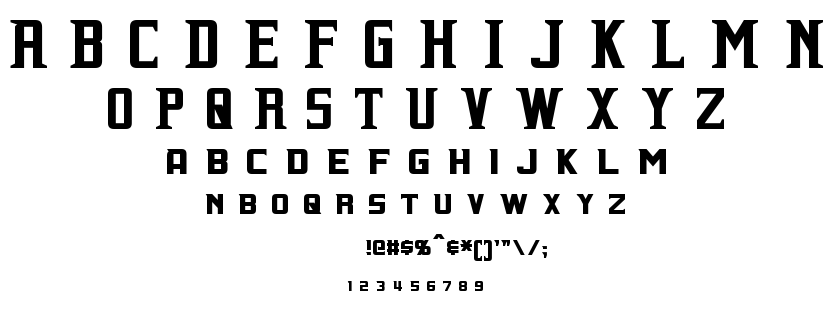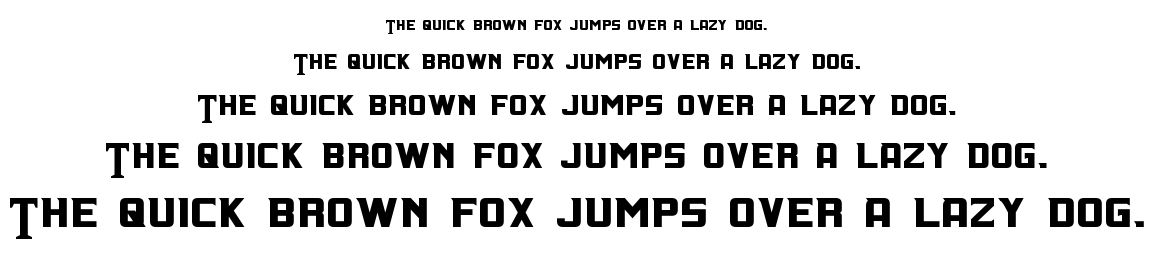
Indiana is based on the comic logo of Marvel’s “Futher Adventures of Indiana Jones” line. It’s a strong, bold font with a distinct retro style. Includes full alphabet, punctuation, accent characters, and euro.
1.10 Update – Reworked spacing on capital letters, added a few more extended punctuation symbols.